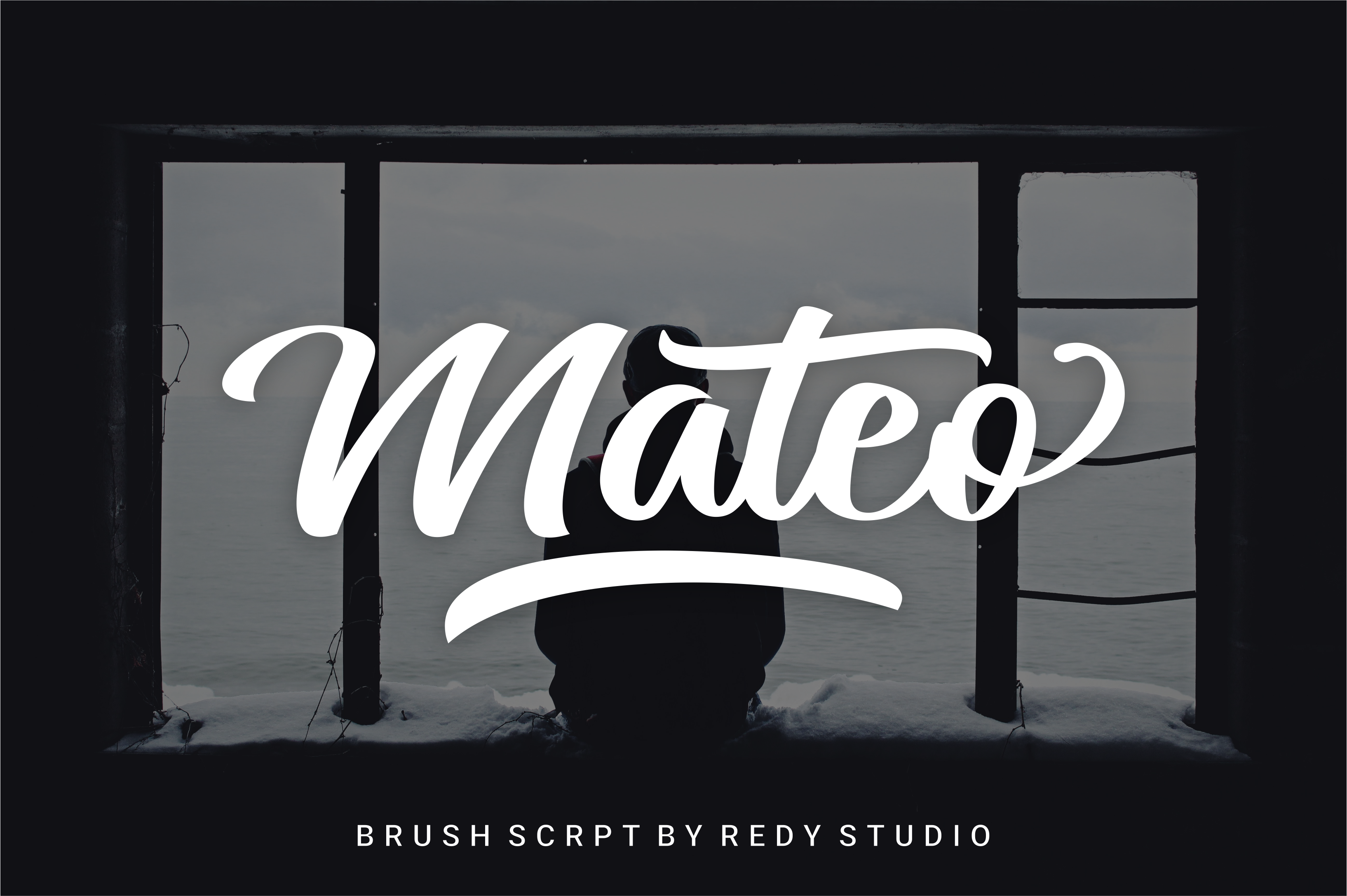
Mateo Script Fonts
Welcome to Mateo Script Fonts. From the designer to you, for your design needs. Here we focus on making high-quality brush fonts that are all handmade. We hope you find them useful. Perfect to use for Logotype, Letterhead, Poster, Apparel Design, Label and etc.
Mateo Script features:
- A full set of upper & lowercase characters
- Stylistic alternates
- Lowercase ending swashes
- Multilingual symbols